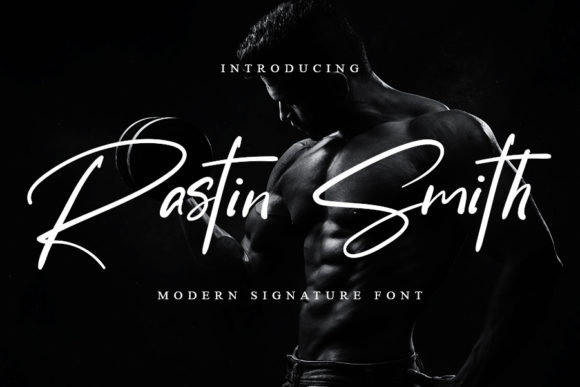
Behold the captivating Rastin Smith Font, a script font family that exudes elegance and sophistication. Designed by the talented K_IN Studio, this font is a masterpiece crafted to elevate your designs to new heights.
Immerse yourself in the beauty of Rastin Smith, a script font that dances across your screen with its flowing curves and delicate strokes. This font is a visual symphony, perfect for adding a touch of charm and personality to your creative projects.
With Rastin Smith, you can effortlessly create stunning wedding invitations that capture the essence of romance and love. Its graceful lines and elegant flourishes will add a touch of magic to your special day. Design thank you cards that express your gratitude with heartfelt elegance. Create quotes that resonate with your audience, leaving a lasting impression.
Unleash your creativity with greeting cards that showcase the versatility of Rastin Smith. Its timeless appeal and adaptability make it a perfect choice for any occasion. Whether it's a birthday, anniversary, or just a friendly hello, Rastin Smith will convey your sentiments with style and grace.
Elevate your brand identity with Rastin Smith, a font that commands attention. Design logos that exude professionalism and sophistication, leaving a lasting impression on your customers. Create business cards that make a statement, showcasing your attention to detail and commitment to excellence.
The possibilities are endless with Rastin Smith. Its versatility extends to any design project that calls for a touch of elegance and creativity. Whether you're crafting social media posts, designing posters, or creating website graphics, Rastin Smith will elevate your work to new heights of beauty and sophistication.
So, embark on a creative journey with Rastin Smith, the script font that will transform your designs into works of art. Experience the magic of its flowing lines, delicate curves, and enchanting charm. Let Rastin Smith be your creative ally, helping you create designs that captivate, inspire, and leave a lasting impression.